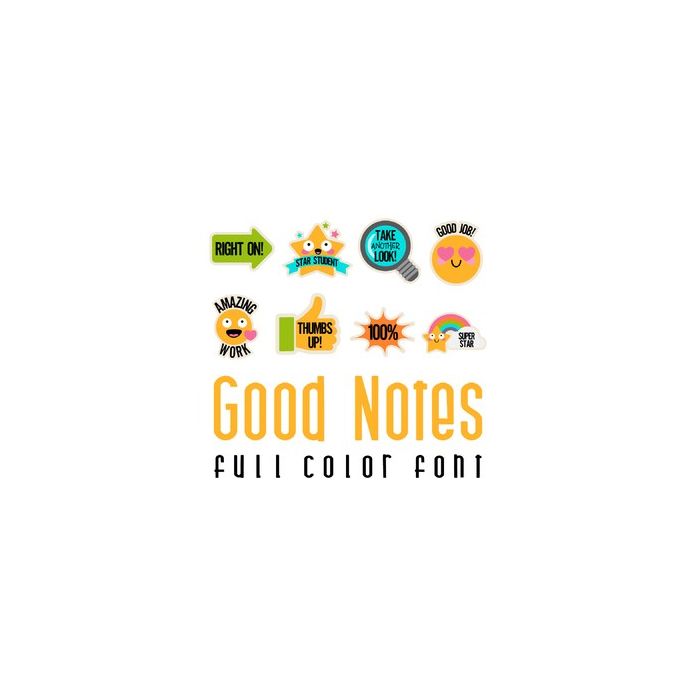
This adorable full color doodlebat font features fun sticker imagery perfect for teachers and praise. Perfect for cards, crafts, gifts, decor, scrap book pages, planner stickers and more!